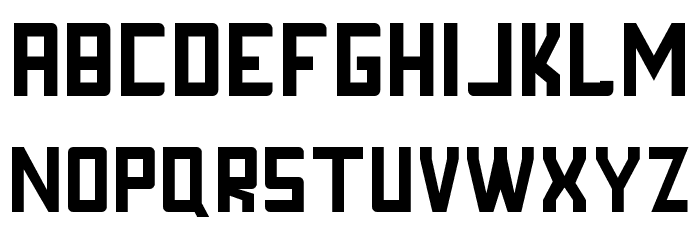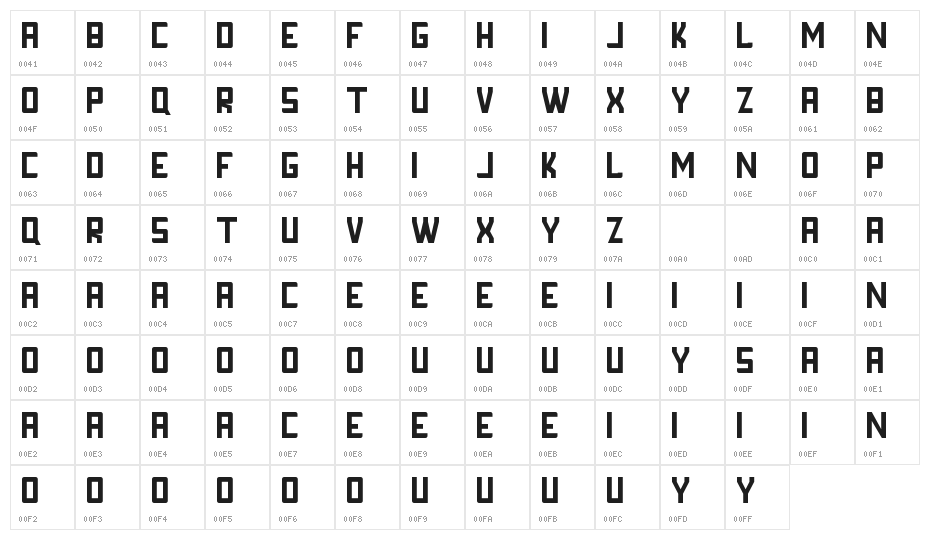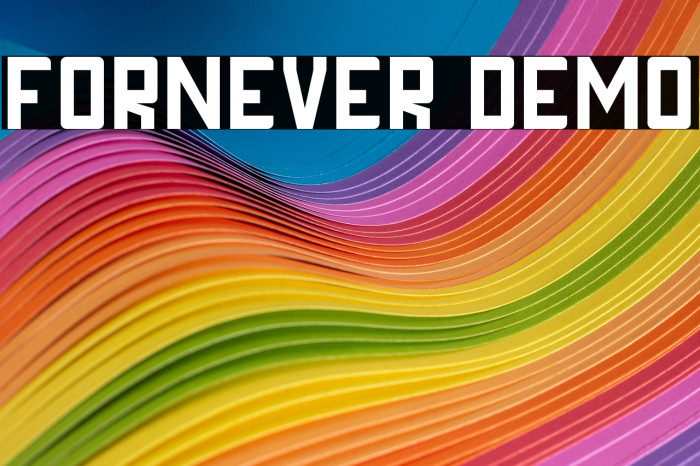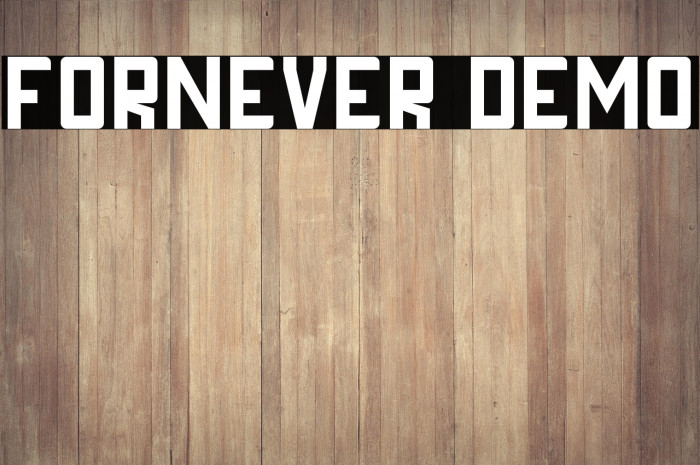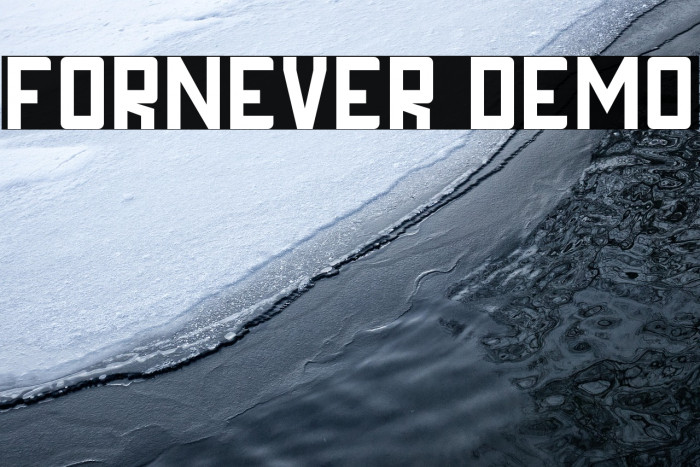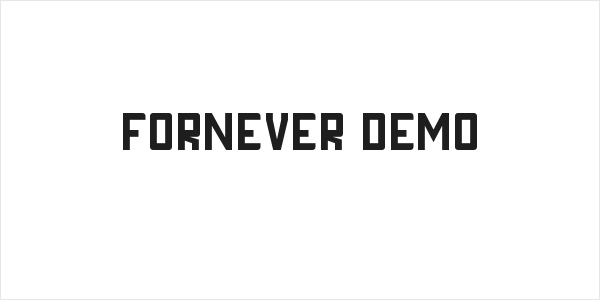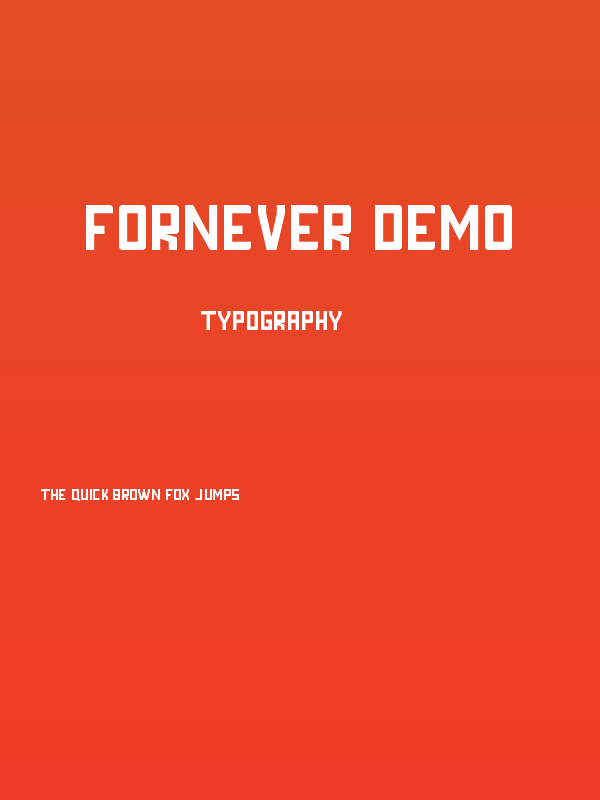
FORNEVER DEMO Font
FORNEVER DEMO Description
This font features a bold and geometric design, characterized by its blocky and angular letterforms. The uppercase letters exhibit a uniform height and width, creating a sense of balance and stability. The strokes are thick and consistent, contributing to a strong visual impact. The font's style is reminiscent of industrial or futuristic aesthetics, making it suitable for projects that require a modern and assertive look. The absence of curves and the presence of sharp edges give it a distinctive and memorable appearance.